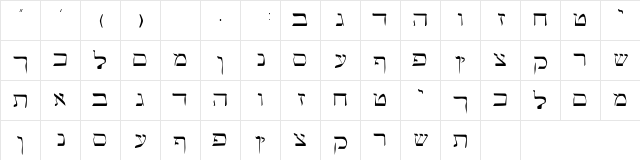
MatozohSSK Regular
Design Context for MatozohSSK Typeface
MatozohSSK offers clean, dependable letterforms without strong stylistic allegiance, making it a practical choice for designers who need flexibility.